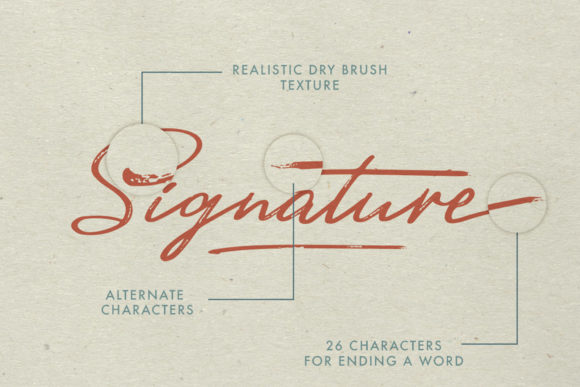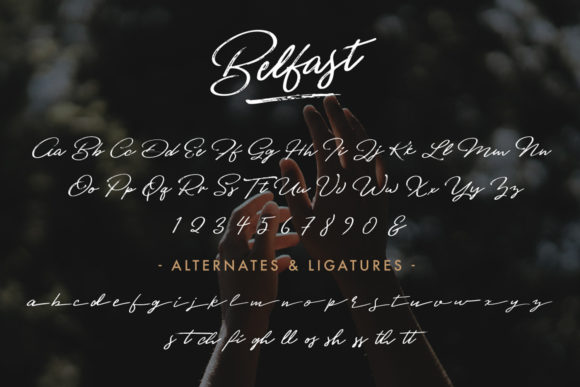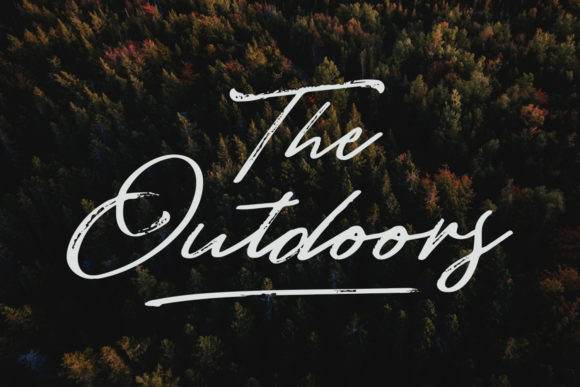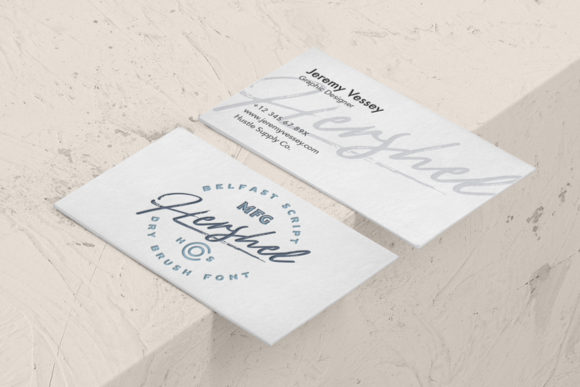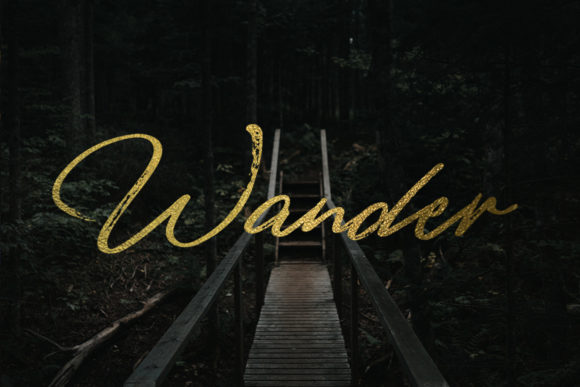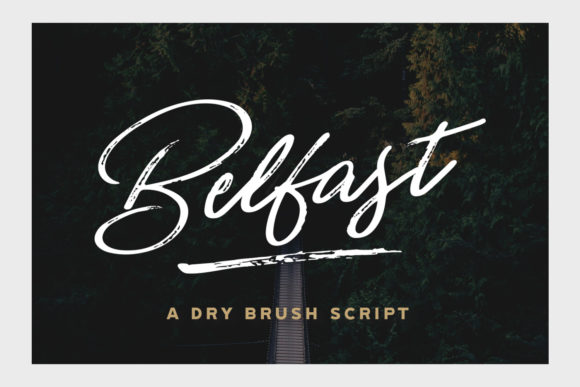
Belfast Font: A Charming Script Font for DIY Projects
Are you a designer or crafter looking for a unique and authentic font to bring your DIY projects to life? Look no further than the Belfast Font! This stunning script font is the result of a beautiful pairing of a brush pen and pencil, giving it an endearing and genuine feel that’s sure to capture the hearts of your audience.
The Origins of Belfast Font
The Belfast Font is a one-of-a-kind script font that has been carefully crafted to resemble the fluid strokes of a brush pen and the delicate details of a pencil. The result is a font that exudes a sense of warmth and personality, making it perfect for DIY projects that require a personal touch.
What Makes Belfast Font So Special?
So, what sets the Belfast Font apart from other script fonts on the market? Here are just a few reasons why this font is a cut above the rest:
- Unique and Authentic Look: The Belfast Font boasts a unique and authentic look that’s unlike any other script font out there. The combination of brush pen and pencil strokes gives it a distinctive feel that’s both modern and vintage.
- Hand-Drawn with Love: This font is carefully hand-drawn with love and attention to detail, giving it a personal touch that’s hard to find in digital fonts.
- Versatile and Flexible: The Belfast Font is incredibly versatile and can be used for a wide range of DIY projects, from crafting and scrapbooking to branding and advertising.
How to Use Belfast Font in Your DIY Projects
Now that you’ve fallen in love with the Belfast Font, it’s time to start using it in your DIY projects! Here are a few ideas to get you started:
- Crafting and Scrapbooking: Add a personal touch to your scrapbook pages, cards, and other crafting projects with the Belfast Font. It’s perfect for journaling, titles, and headings.
- Branding and Advertising: Use the Belfast Font to create unique and eye-catching branding materials, such as logos, business cards, and brochures.
- DIY Stationery: Create your own custom stationery, including notebooks, journals, and greeting cards, using the Belfast Font.
Tips and Tricks for Working with Belfast Font
Here are a few tips and tricks to help you get the most out of the Belfast Font:
- Experiment with Colors: The Belfast Font looks great in a variety of colors, so don’t be afraid to experiment and find the perfect hue for your project.
- Mix and Match with Other Fonts: Try pairing the Belfast Font with other fonts to create a unique and interesting look.
- Pay Attention to Kerning: Make sure to adjust the kerning on your text to ensure that the font looks its best.
In conclusion, the Belfast Font is a stunning script font that’s perfect for DIY projects that require a personal touch. Its unique and authentic look, hand-drawn with love and attention to detail, makes it a cut above the rest. Whether you’re a designer or crafter, this font is sure to bring your projects to life in a way that’s both endearing and authentic. So why wait? Download the Belfast Font today and start creating your own unique and eye-catching DIY projects!